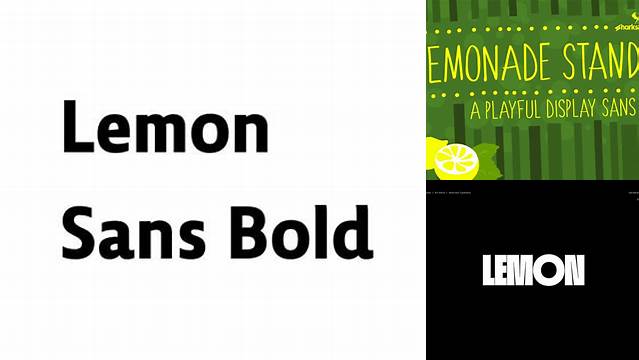
Lemon Sans Font: Your Free Download & Design Guide
Hey there, design enthusiasts! Are you on the hunt for a fresh, modern, and super versatile font that can elevate your projects? Well, you've landed in the right spot because today, we're diving deep into the world of Lemon Sans Font and, more importantly, how you can snag a free download of this fantastic typeface. This isn't just about getting a file; it's about understanding why Lemon Sans is a game-changer for many designers, what makes it tick, and how you can truly unleash its potential across various creative endeavors. So, grab a coffee, settle in, and let's explore everything you need to know about getting your hands on this awesome font and making your designs pop. We're talking style, functionality, and, of course, that sweet, sweet free download!
Understanding the Allure of Lemon Sans Font
When we talk about Lemon Sans Font, we're really digging into a typeface that has captivated designers with its clean lines, contemporary feel, and incredible versatility. Lemon Sans isn't just another font; it's a statement. It’s a sans-serif that manages to be both friendly and professional, making it suitable for a truly vast array of applications. Guys, what really makes Lemon Sans stand out is its perfect balance of legibility and unique character. It avoids the overly rigid or sterile feel that some sans-serifs can have, injecting a touch of warmth and approachability without sacrificing an ounce of modern sophistication. Imagine a font that can effortlessly bridge the gap between a playful branding project and a serious corporate report—that's the power we're talking about here. Its uniform stroke widths and open counters contribute significantly to its excellent readability, whether it's displayed on a large billboard or tiny print on a business card. The letterforms are meticulously crafted, ensuring a consistent visual rhythm and a harmonious overall appearance, which is crucial for achieving a polished design. Designers often praise its clean aesthetics, noting how well it integrates into diverse visual identities without overpowering other design elements. This adaptability is precisely why so many creatives are eager to get their hands on a Lemon Sans Font free download, recognizing its immense value as a reliable staple in their font libraries. It’s the kind of font that, once you start using it, you wonder how you ever managed without it, thanks to its understated elegance and robust performance across platforms and media.
Why Designers Are Loving Lemon Sans for Free Download
So, why all the buzz around Lemon Sans Font free download? It's simple, guys: Lemon Sans offers an unparalleled blend of aesthetic appeal and practical utility that makes it a darling among the design community. For starters, its contemporary geometric structure, softened by subtle humanist touches, provides a fresh and approachable look. This isn't a stiff, unyielding typeface; it feels dynamic and alive, which is exactly what many modern projects demand. Designers absolutely love its legibility, which remains strong even at smaller sizes or in high-density text blocks. This makes it an ideal choice for everything from mobile app interfaces to extensive editorial layouts where clarity is paramount. Furthermore, the availability of a Lemon Sans Font free download makes it incredibly accessible, allowing freelancers, students, and small businesses to utilize a high-quality font without upfront investment. This democratizes good design, empowering more creators to produce professional-looking work. The versatility of Lemon Sans also plays a huge role in its popularity. It pairs beautifully with a wide range of other fonts, from elegant serifs to more decorative display types, giving designers immense flexibility in creating complex typographic hierarchies. Whether you're crafting a bold headline, a subtle body text, or an informative caption, Lemon Sans performs admirably, maintaining its distinctive character while remaining highly functional. Its consistent visual weight and balanced proportions mean that text set in Lemon Sans simply looks good, projecting an image of thoughtfulness and attention to detail. This robust performance across various design contexts—digital, print, branding—solidifies its reputation as a go-to choice, reinforcing why so many are actively seeking a Lemon Sans Font free download to enhance their creative toolkits.